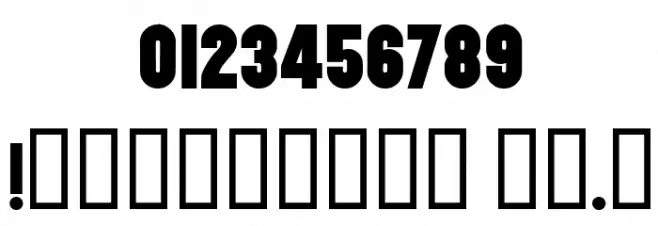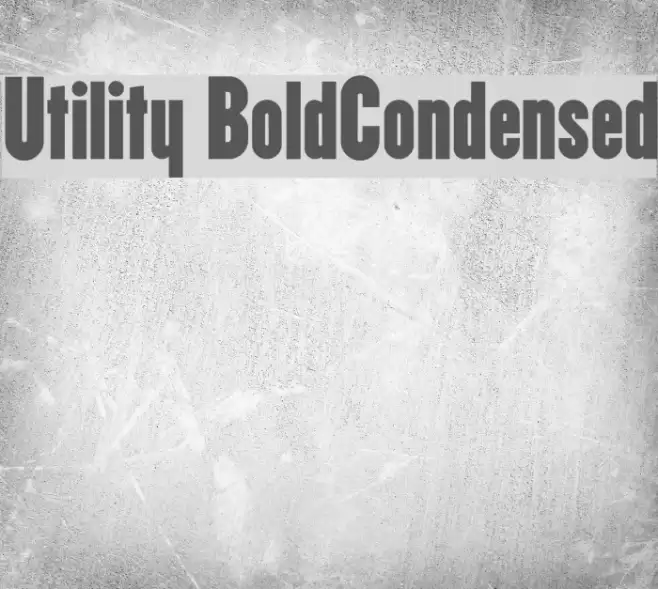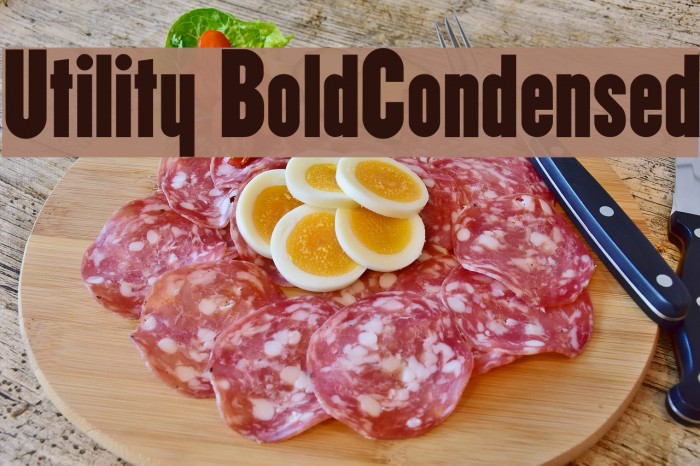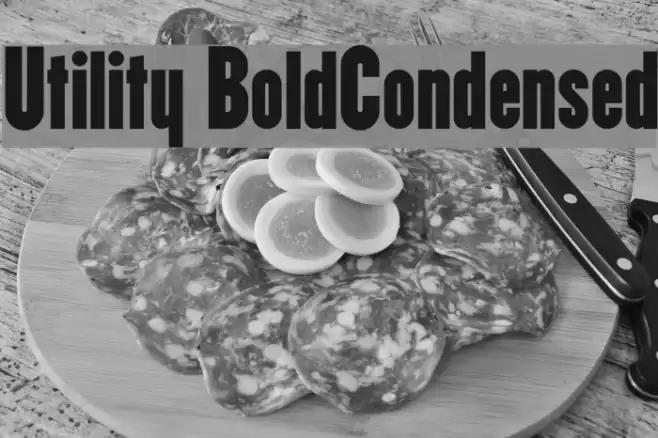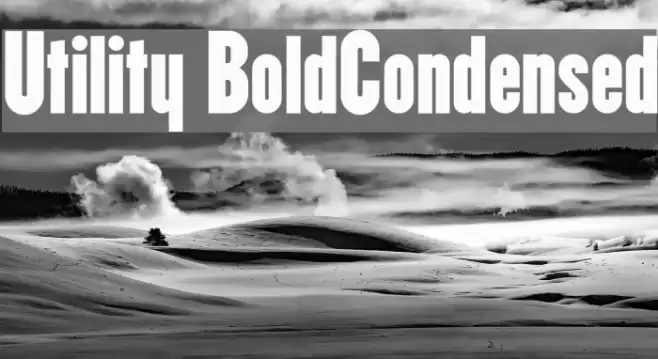
Utility BoldCondensed Font
Utility BoldCondensed Description
This font exudes a strong and impactful presence with its bold and condensed letterforms. The uppercase and lowercase characters are designed with a uniform stroke weight, creating a cohesive and powerful look. The font's condensed nature allows for efficient use of space, making it ideal for headlines and titles where impact is essential. The numerals and special characters maintain the same boldness, ensuring consistency across all text elements. Its clean lines and lack of serifs contribute to a modern and straightforward aesthetic, suitable for a variety of design applications.
| Proposed Projects | Ideal for headlines, posters, advertising, and branding projects where a strong visual impact is needed. |